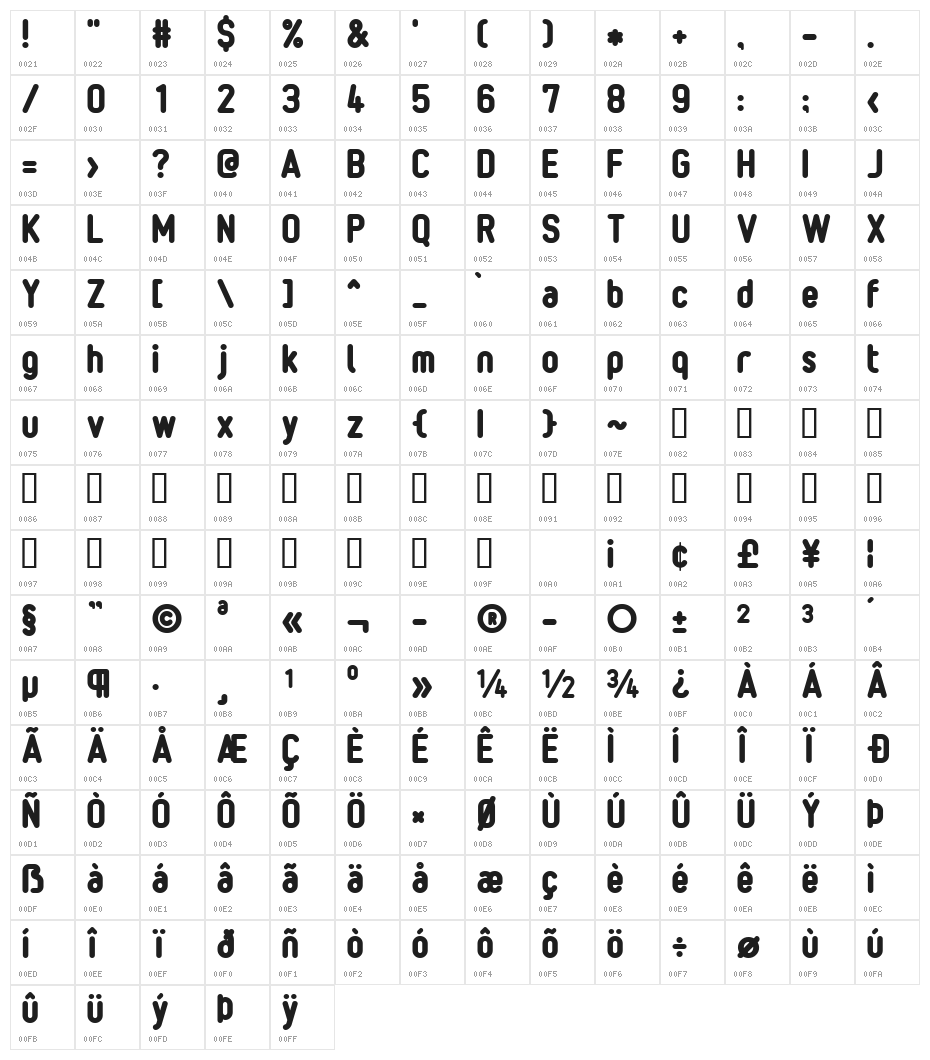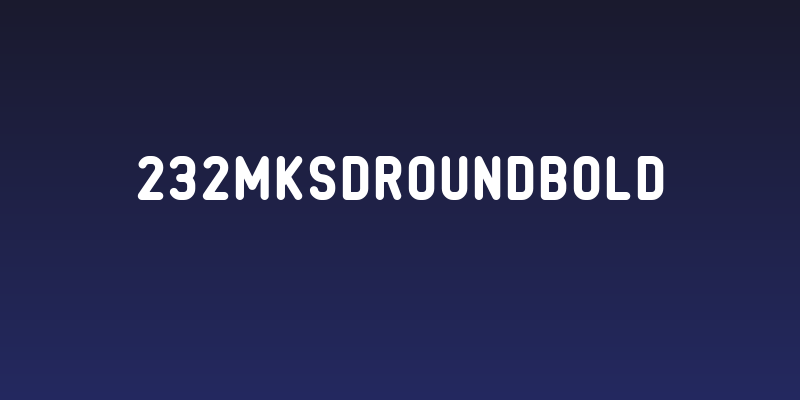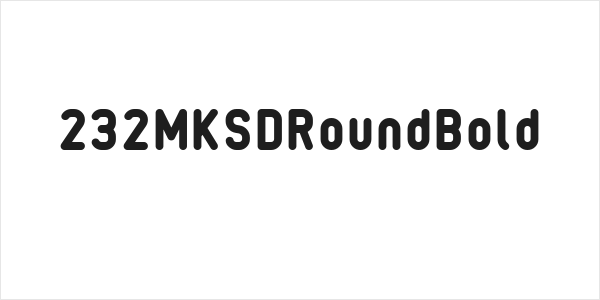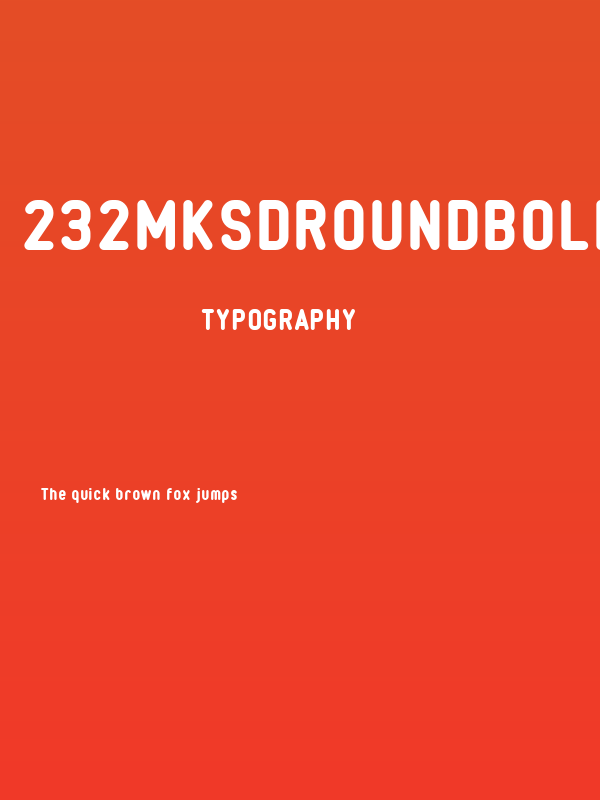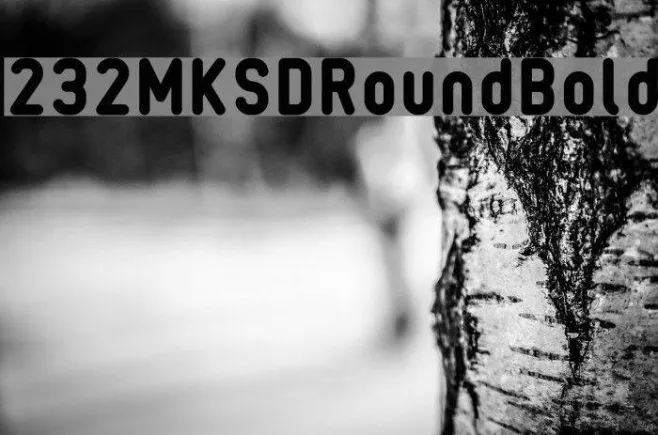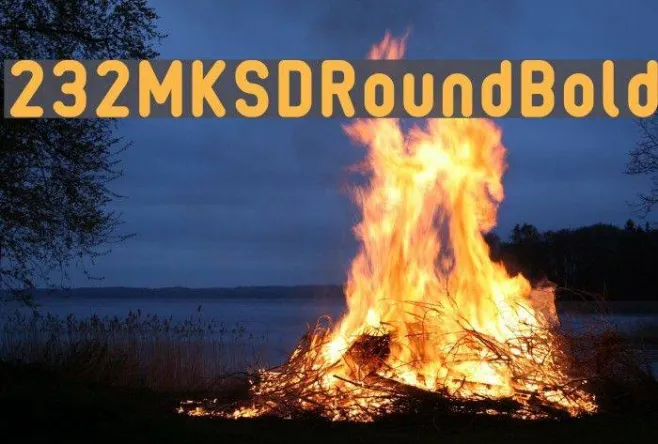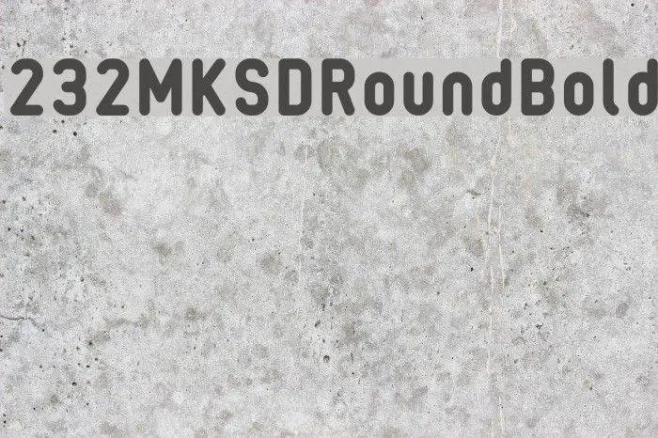
232MKSDRoundBold Font
232MKSDRoundBold Description
This font features a bold and rounded style, characterized by its smooth, curvilinear forms and consistent stroke weight. The uppercase and lowercase letters maintain a uniform appearance, providing a cohesive look across all characters. The numerals and special characters follow the same rounded aesthetic, ensuring visual harmony. Its boldness makes it highly legible and impactful, suitable for various design applications. The rounded edges give it a friendly and approachable feel, making it ideal for projects that require a modern yet inviting touch.
| Proposed Projects | Ideal for branding, headlines, posters, and digital content that requires a modern and approachable look. |